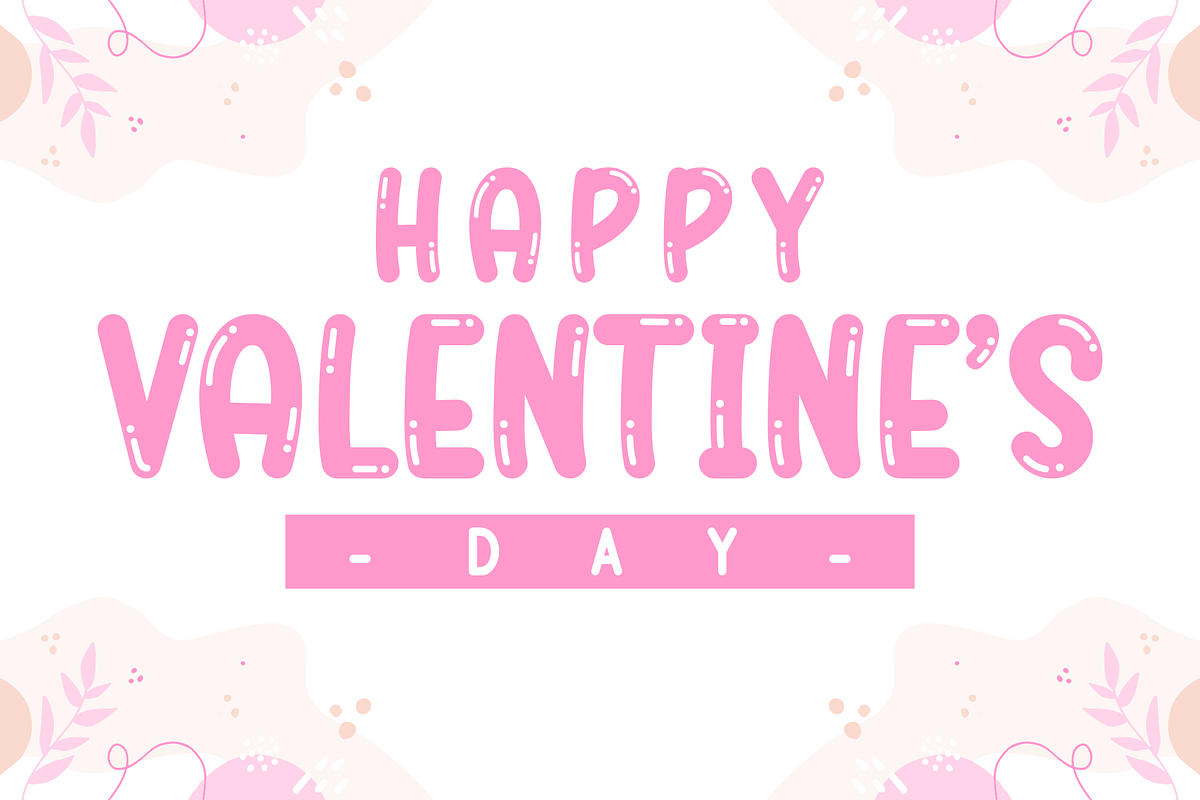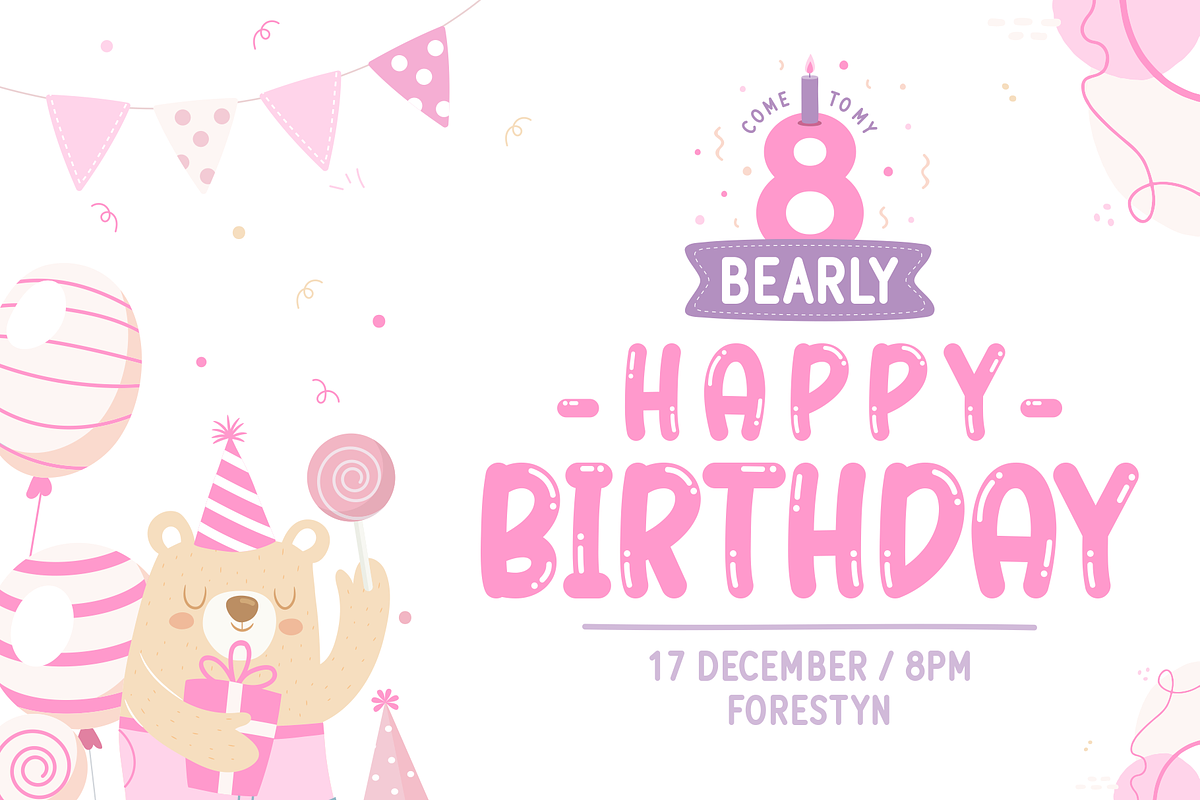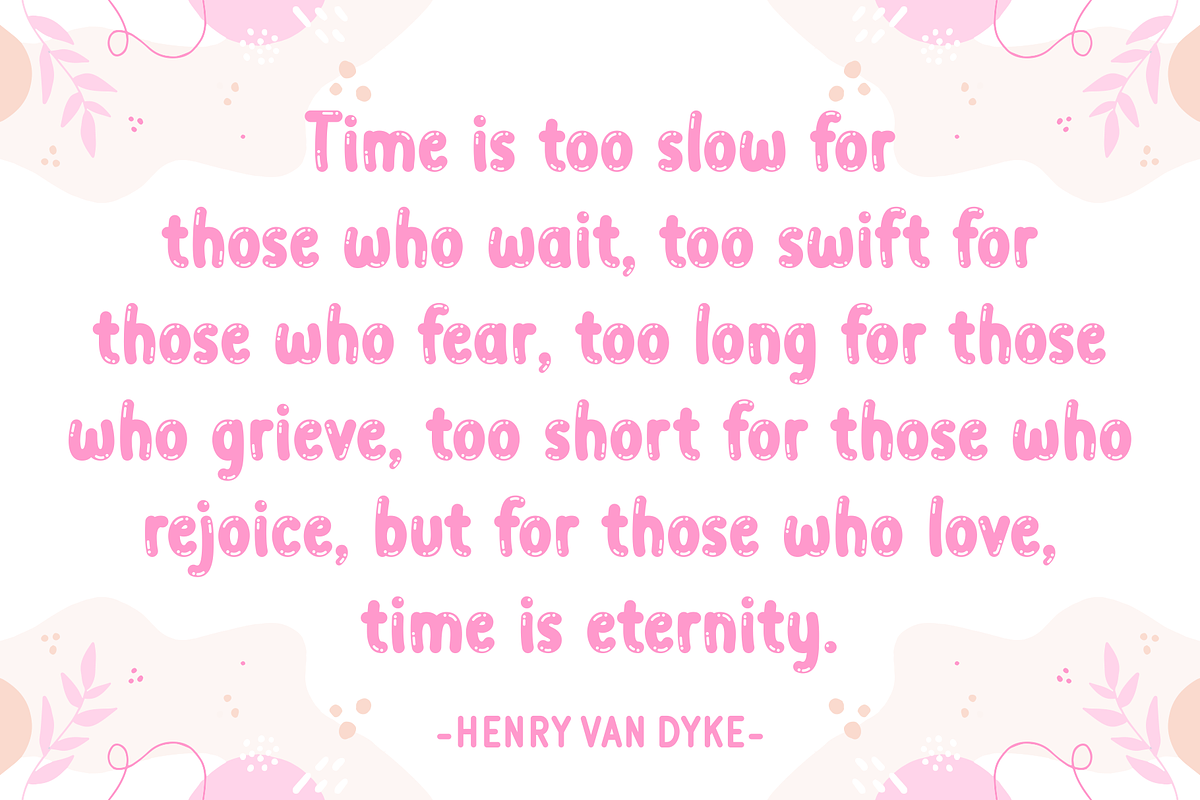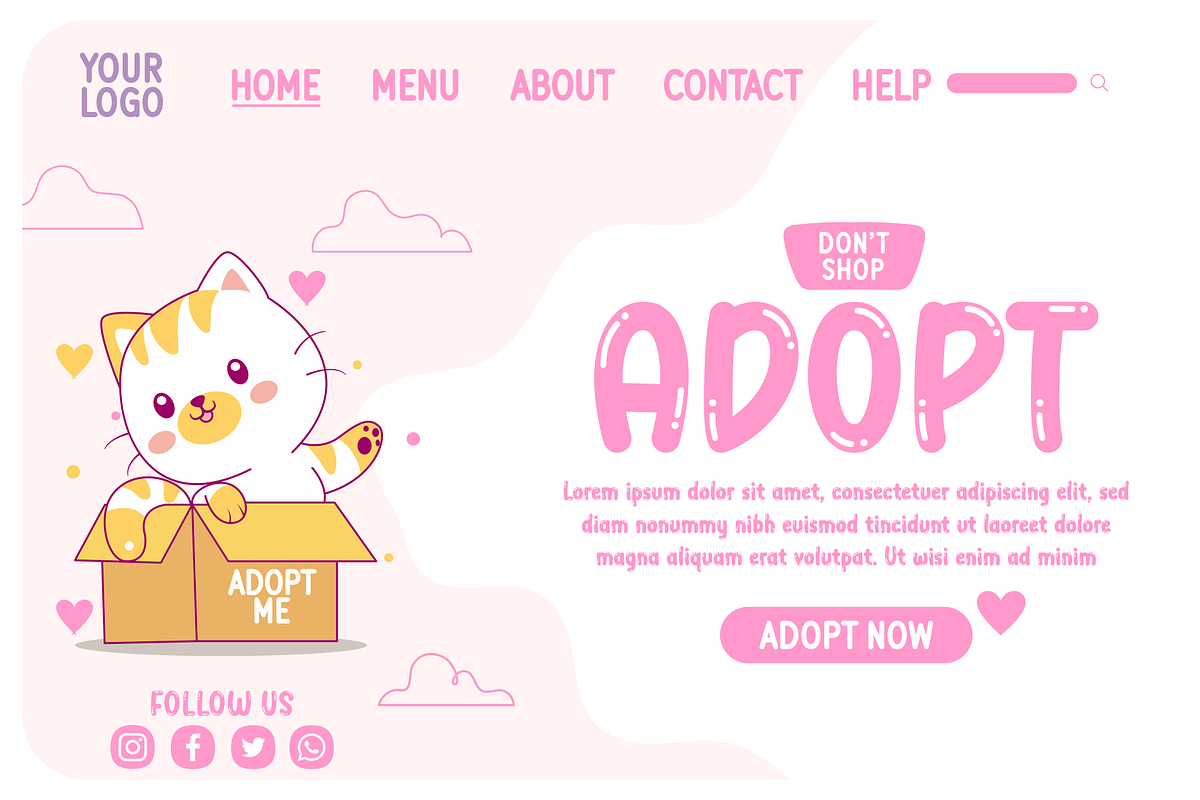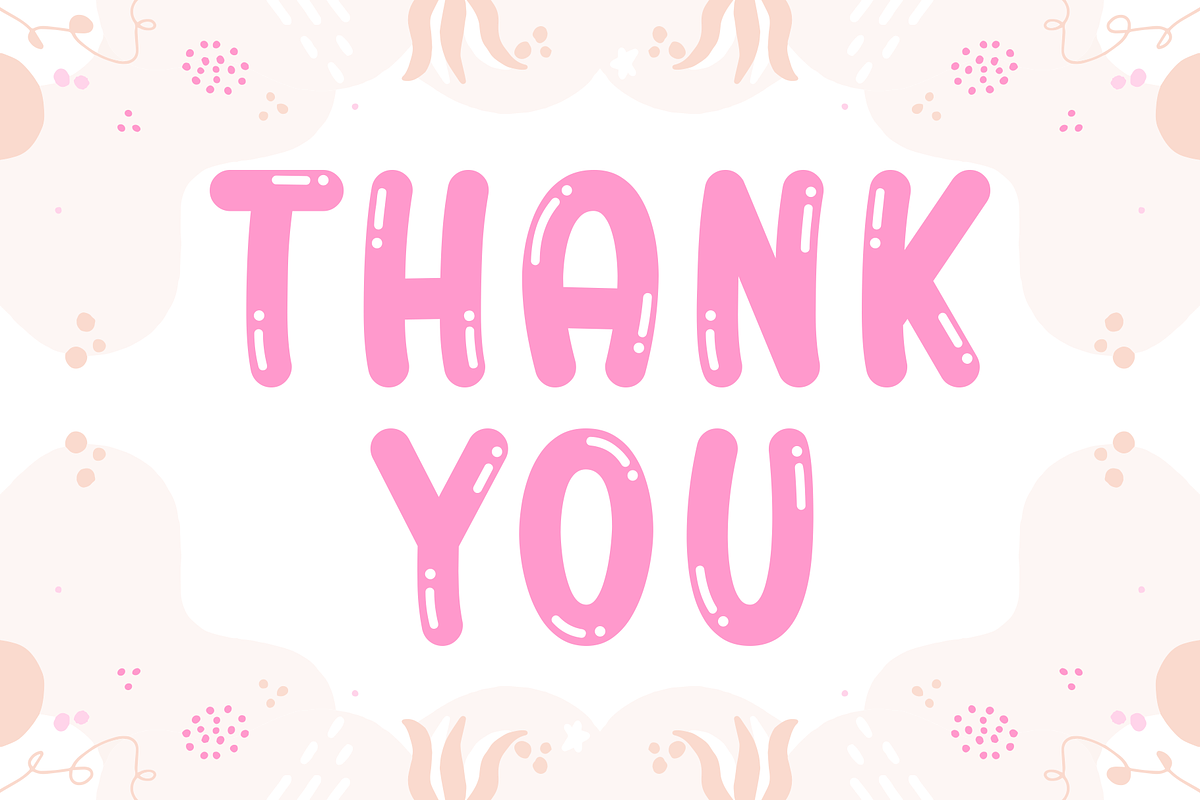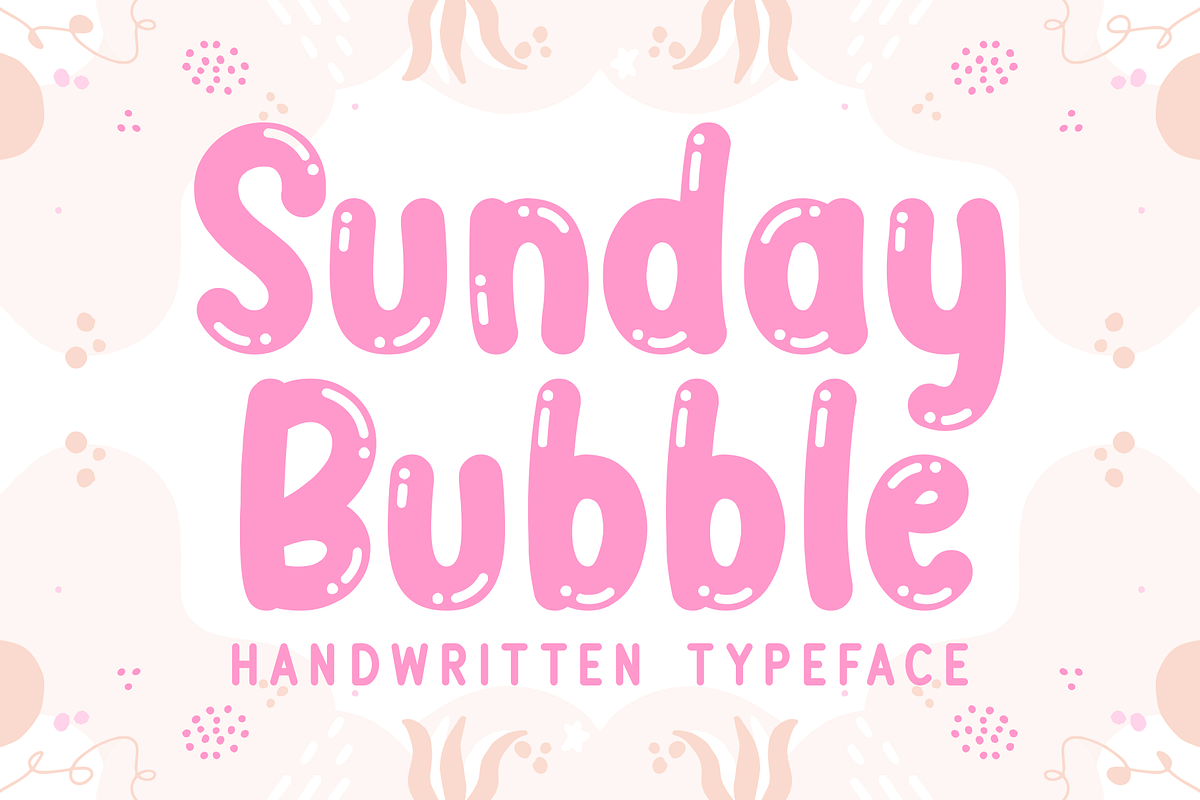
Sunday Bubble
Sunday Bubble is an exciting and fancy display font that will attract all eyes to it! The characters are bold and inviting, perfect for banners, promotional materials, advertisements, branding, product packaging, and so much more!